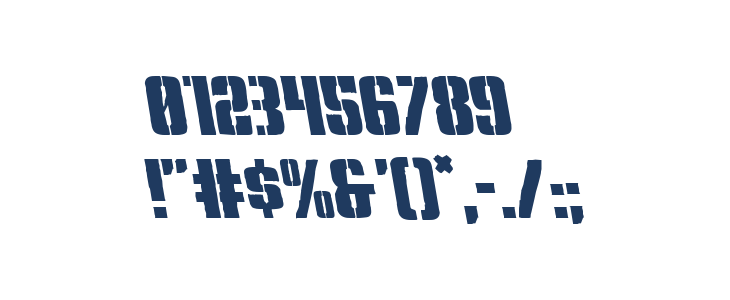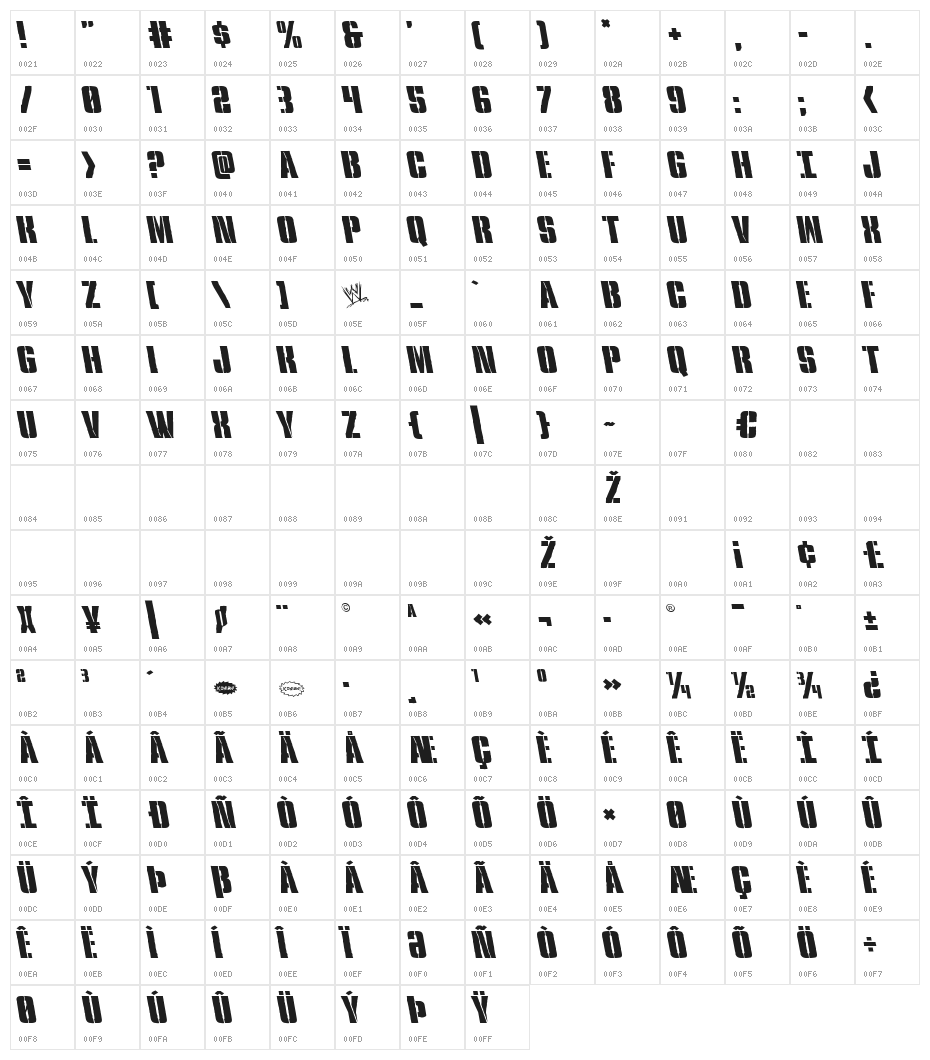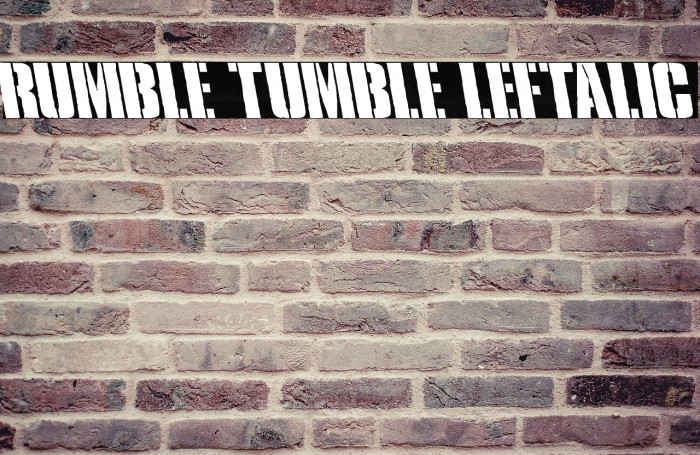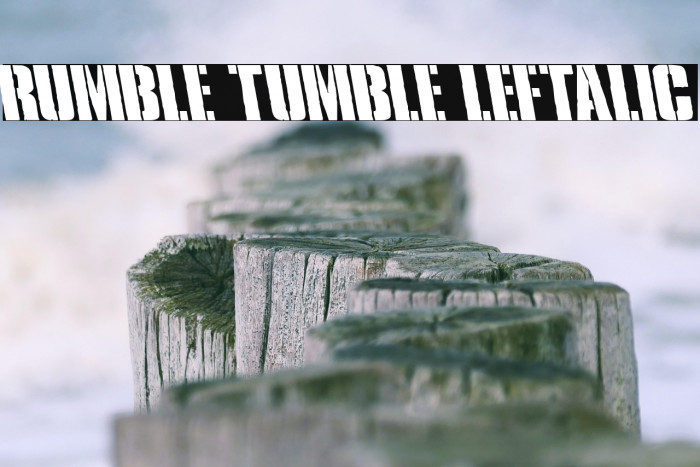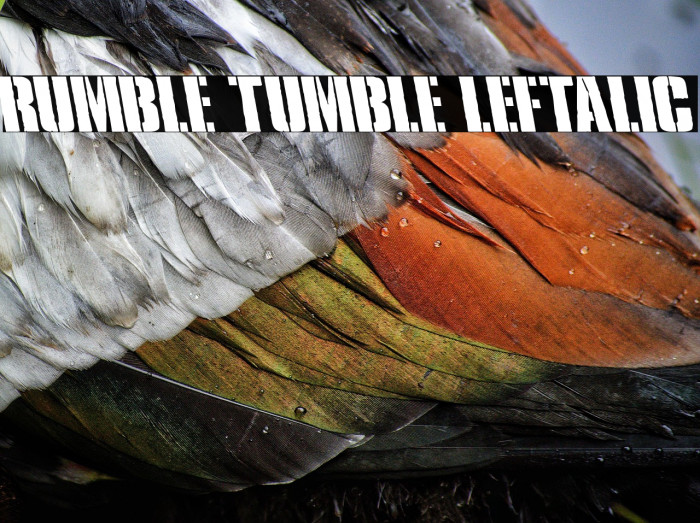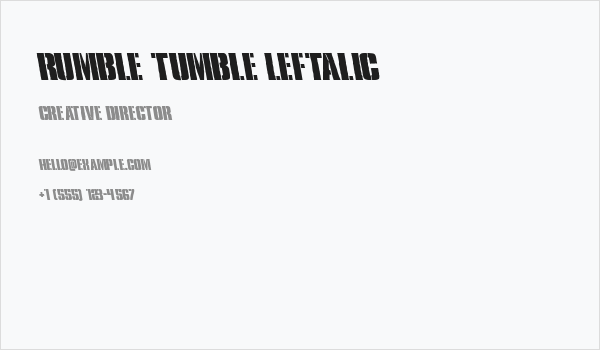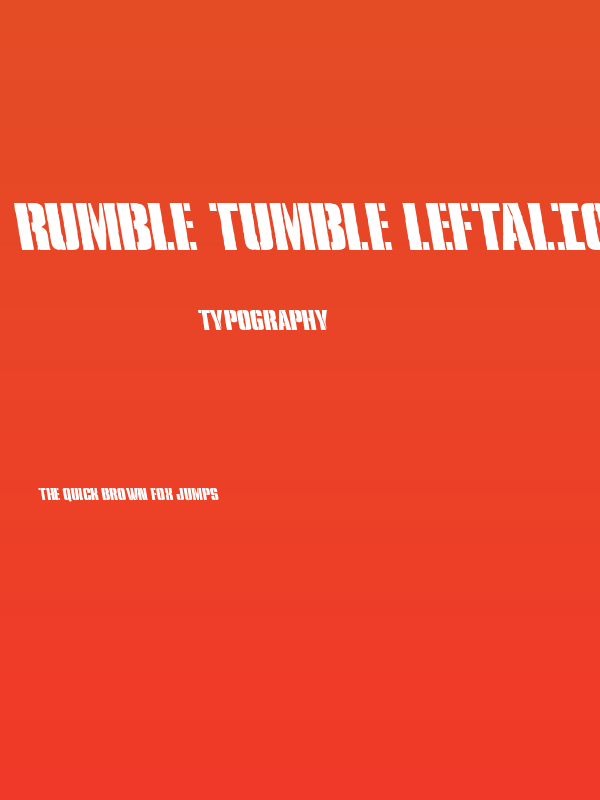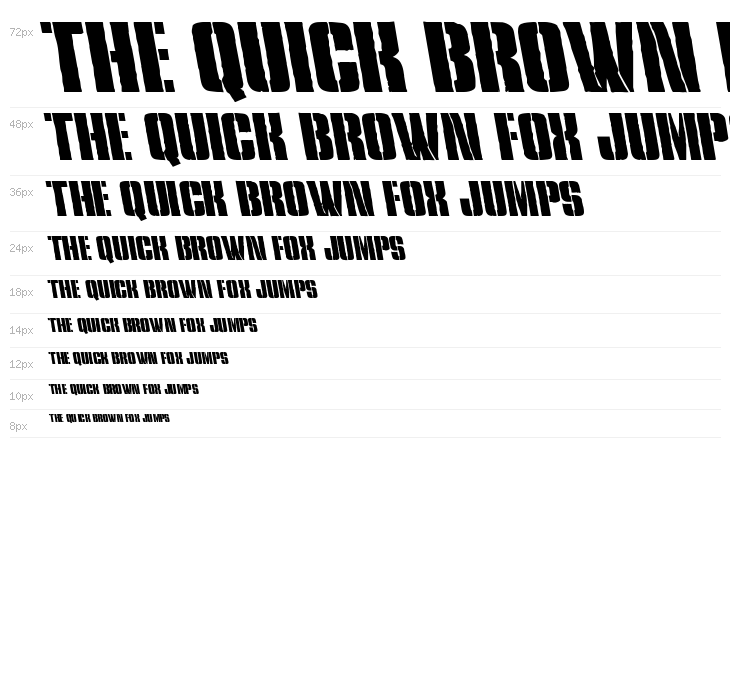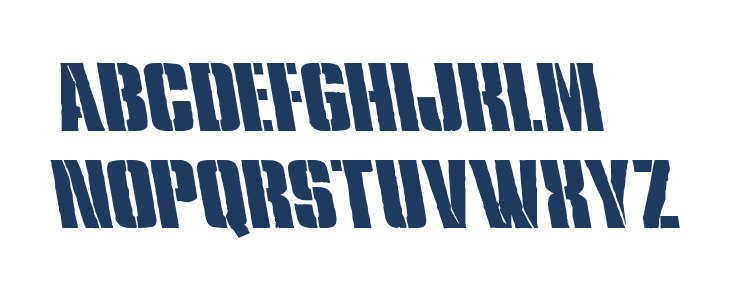
Rumble Tumble Leftalic Font
Rumble Tumble Leftalic Description
This font exhibits a bold and rugged style, characterized by its distressed and fragmented appearance. The letters are heavily stylized with a stencil-like quality, featuring irregular edges and a sense of movement. The uppercase and lowercase letters maintain a consistent weight, contributing to a cohesive look. The numbers and special characters share the same boldness and fragmented design, ensuring uniformity across all glyphs. This font's unique style makes it stand out, offering a dynamic and edgy aesthetic suitable for impactful designs.
| Proposed Projects | Ideal for posters, album covers, branding for edgy products, or any project requiring a bold, impactful statement. |